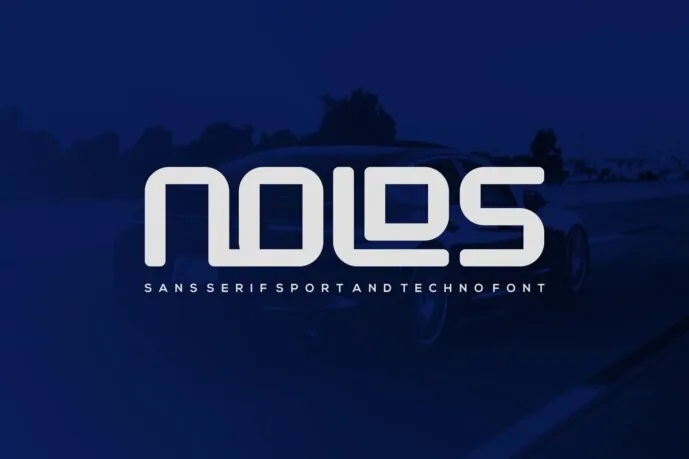
Nolds Font
Nolds Font strokes system(Brand identity manual)Typeface Nolds Font – Modern Font is a display font that looks wild, authentic and most importantly beautiful in action. That makes it very versatile. The font is suitable for any branding project like Logo, t-shirt printing, esports and so on. It is good in a wide range of conditions
Nolds Sans Serif Font